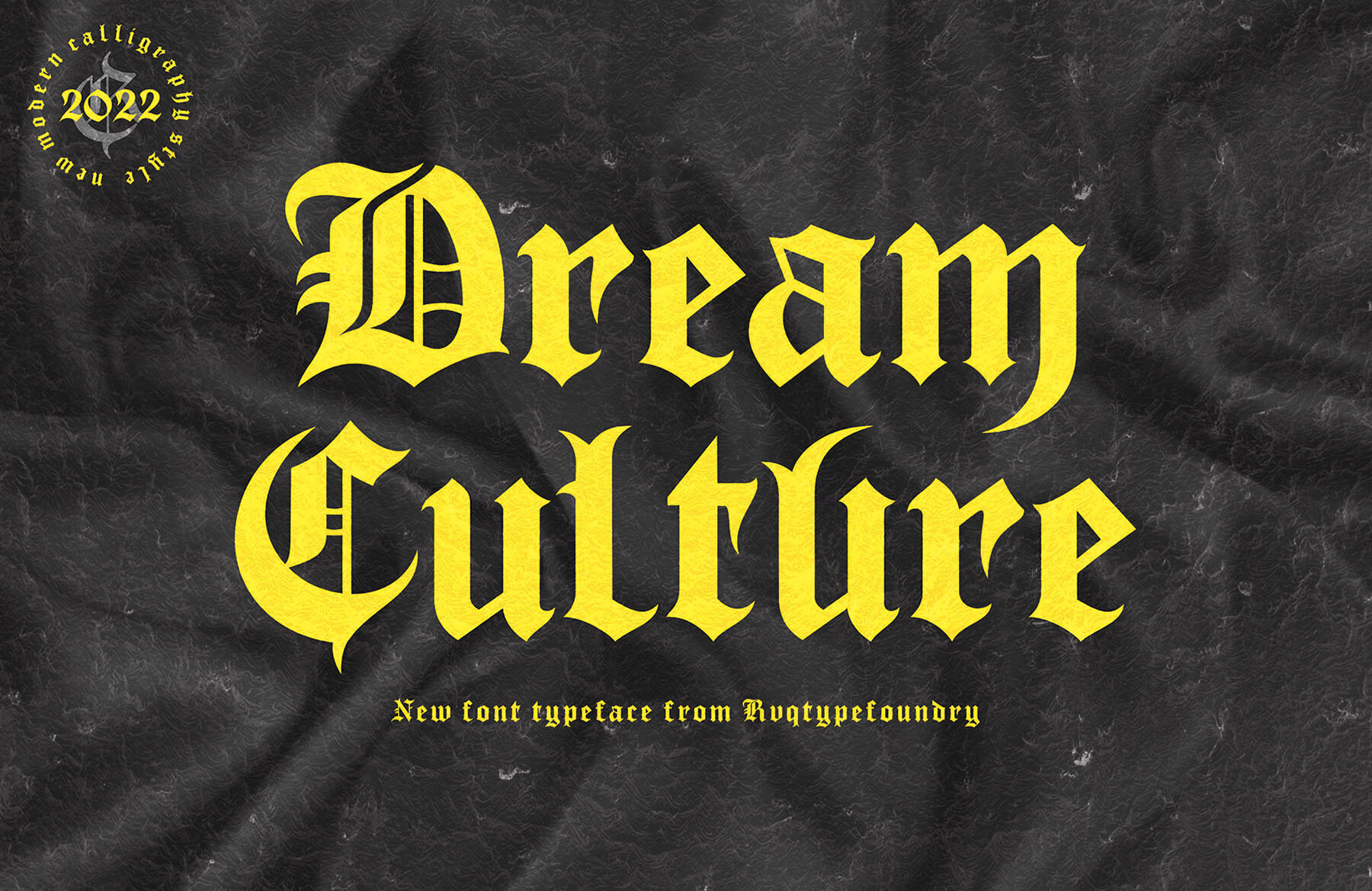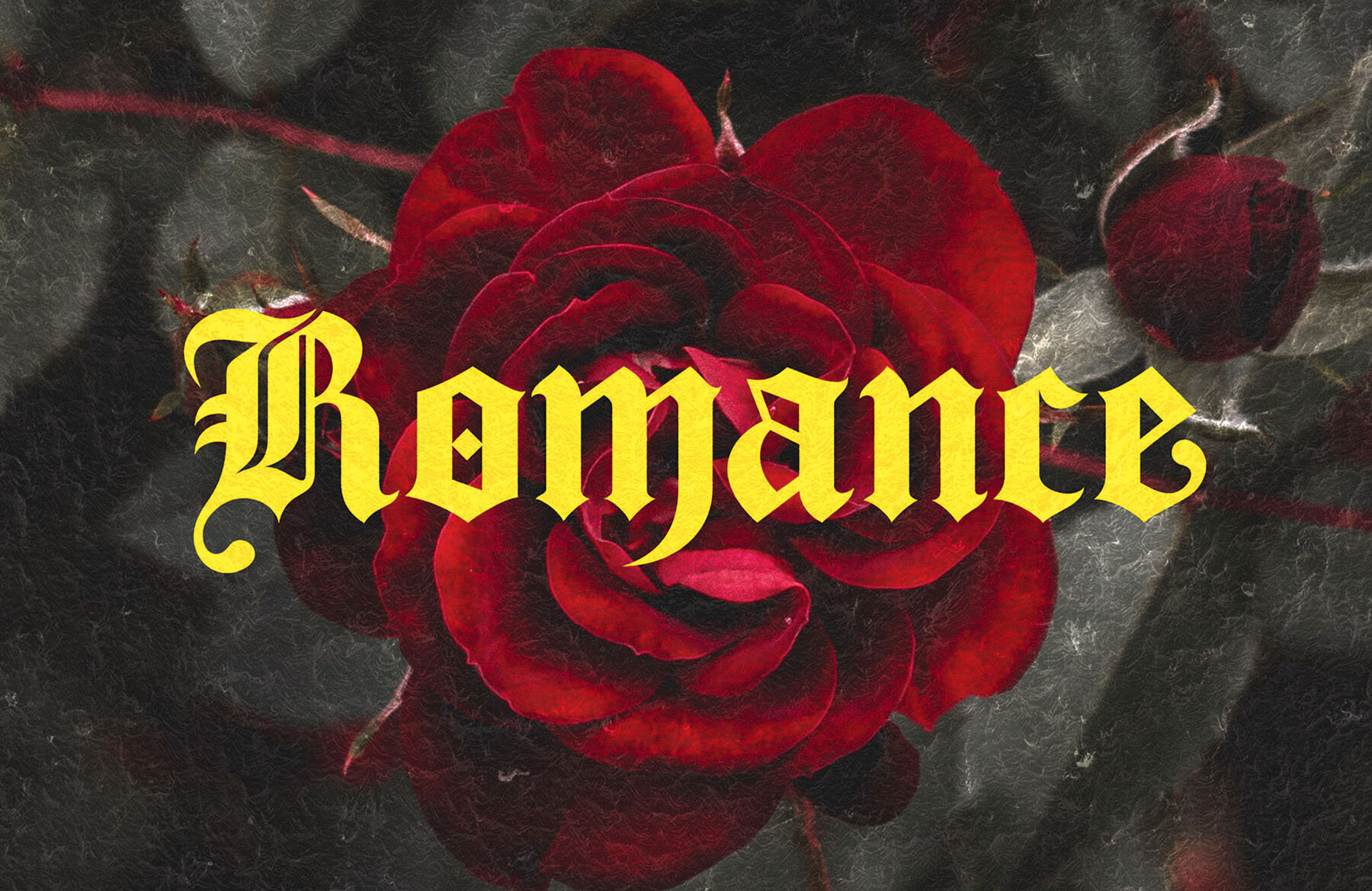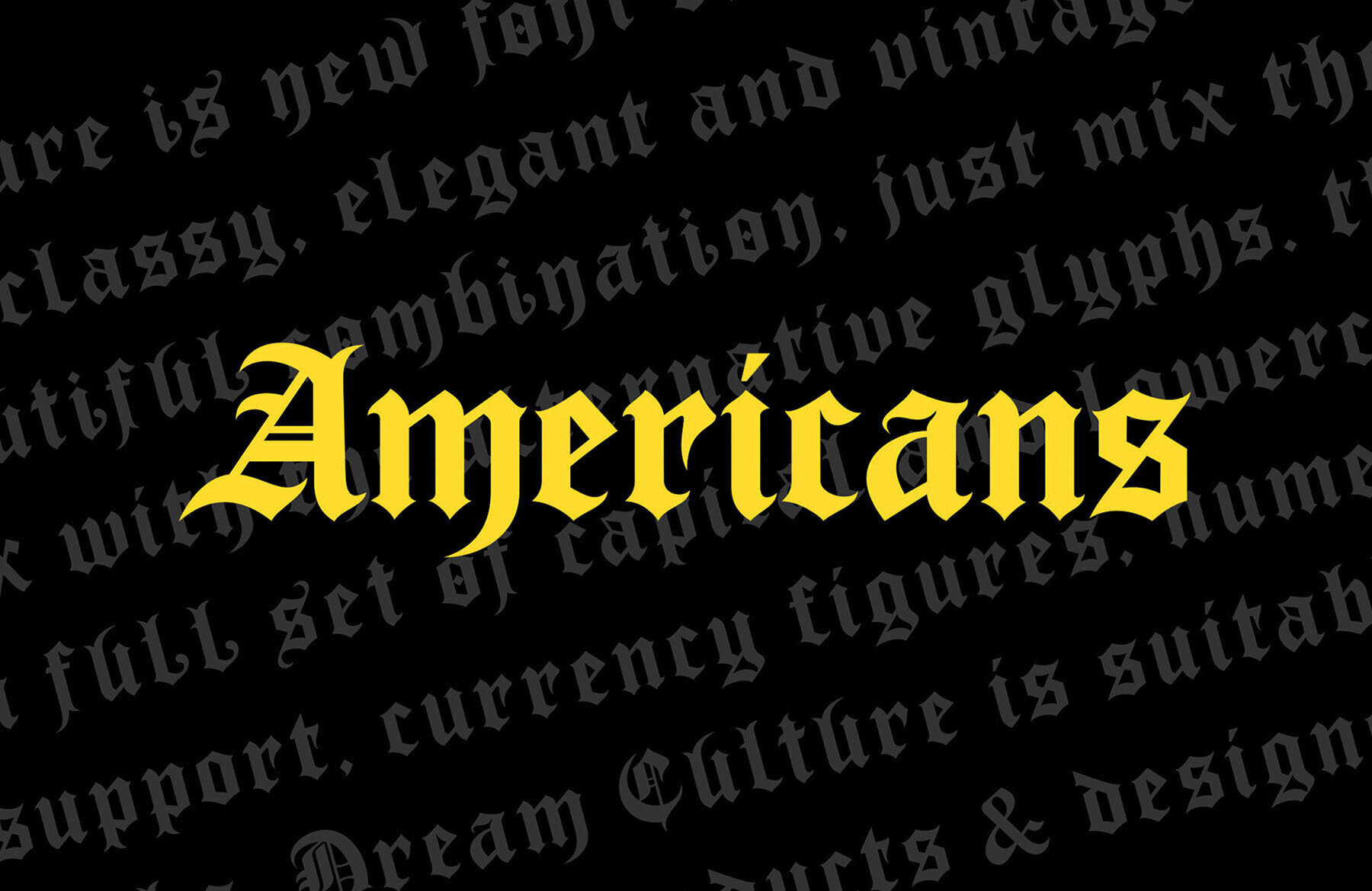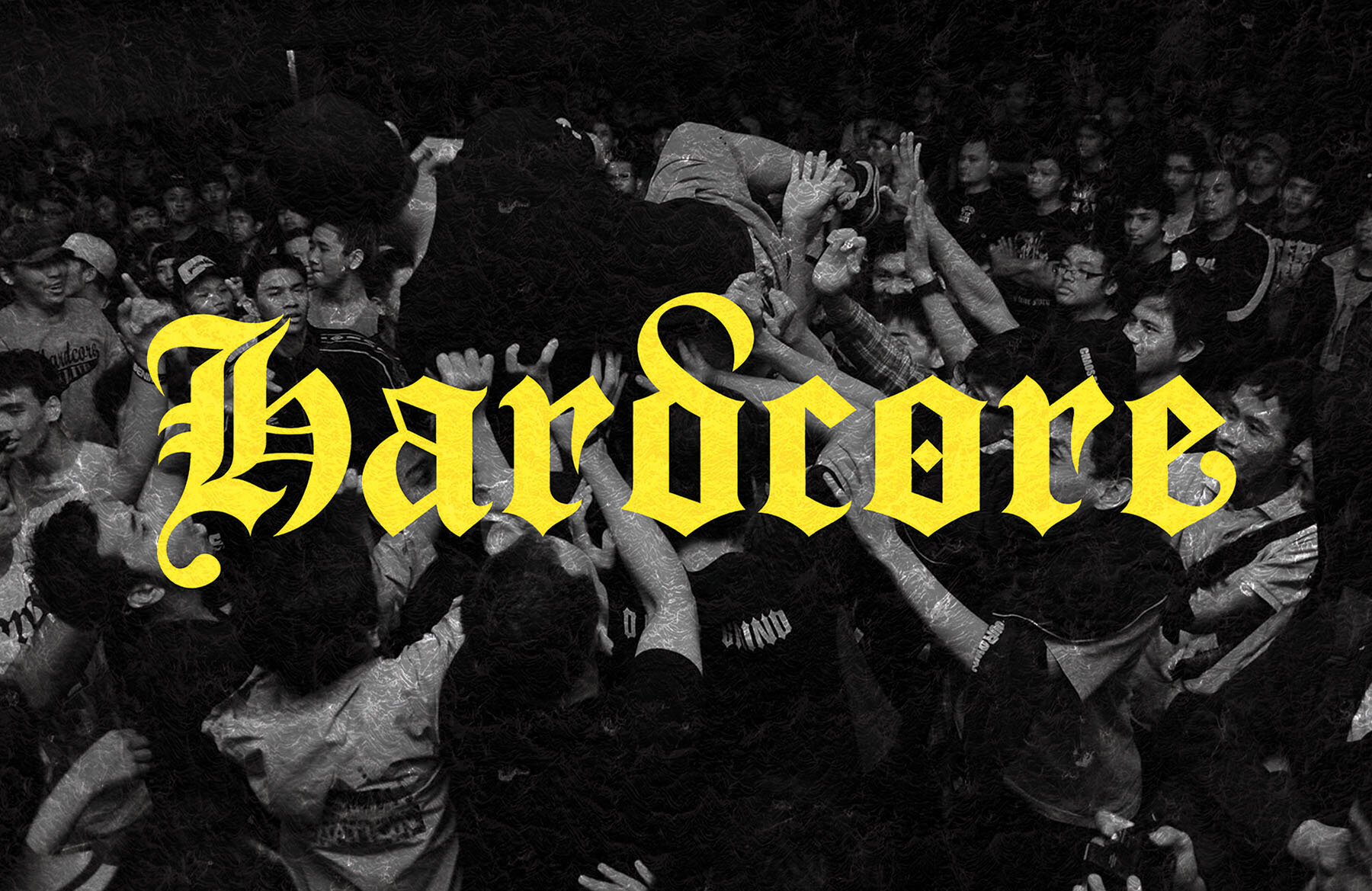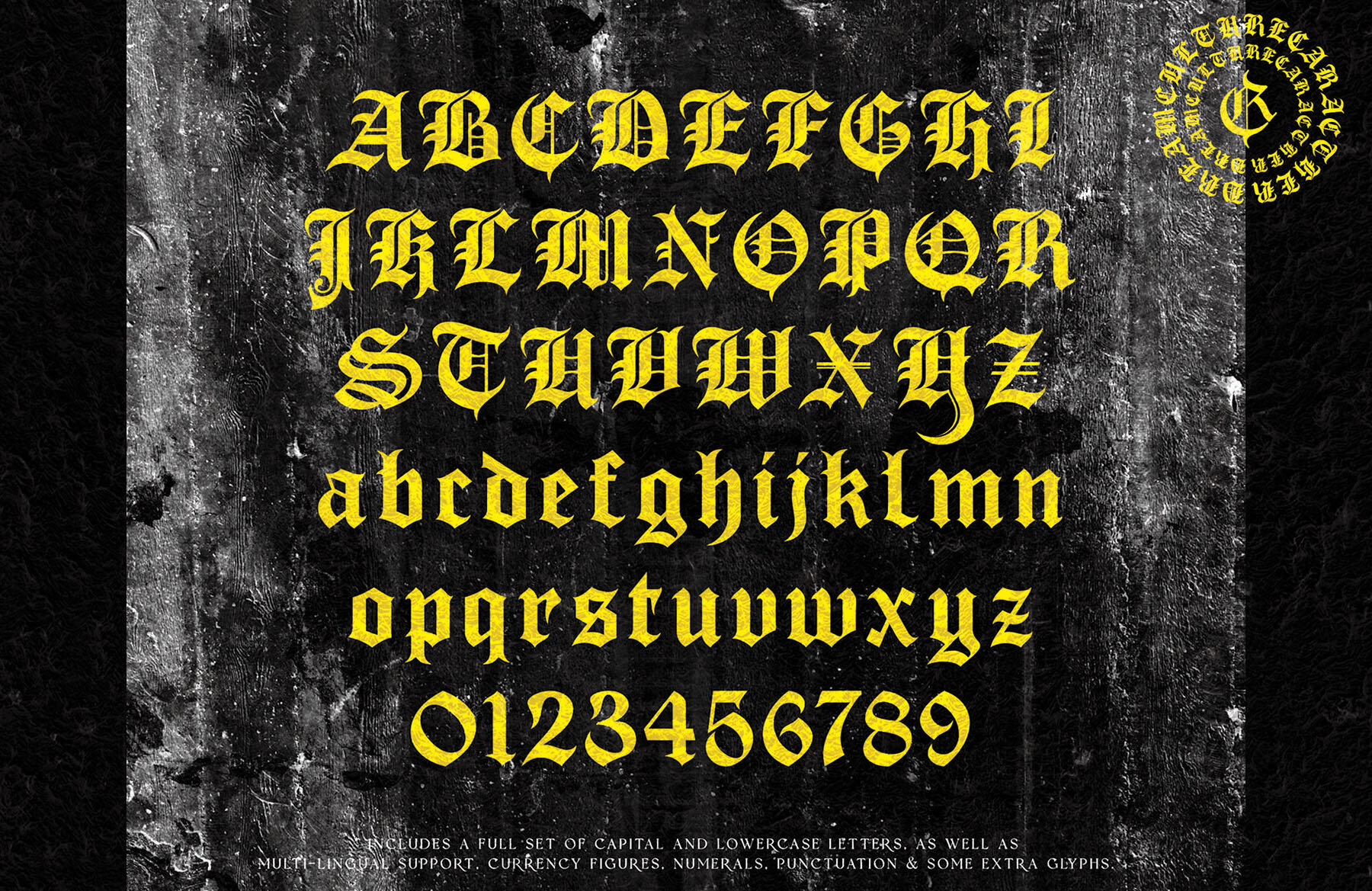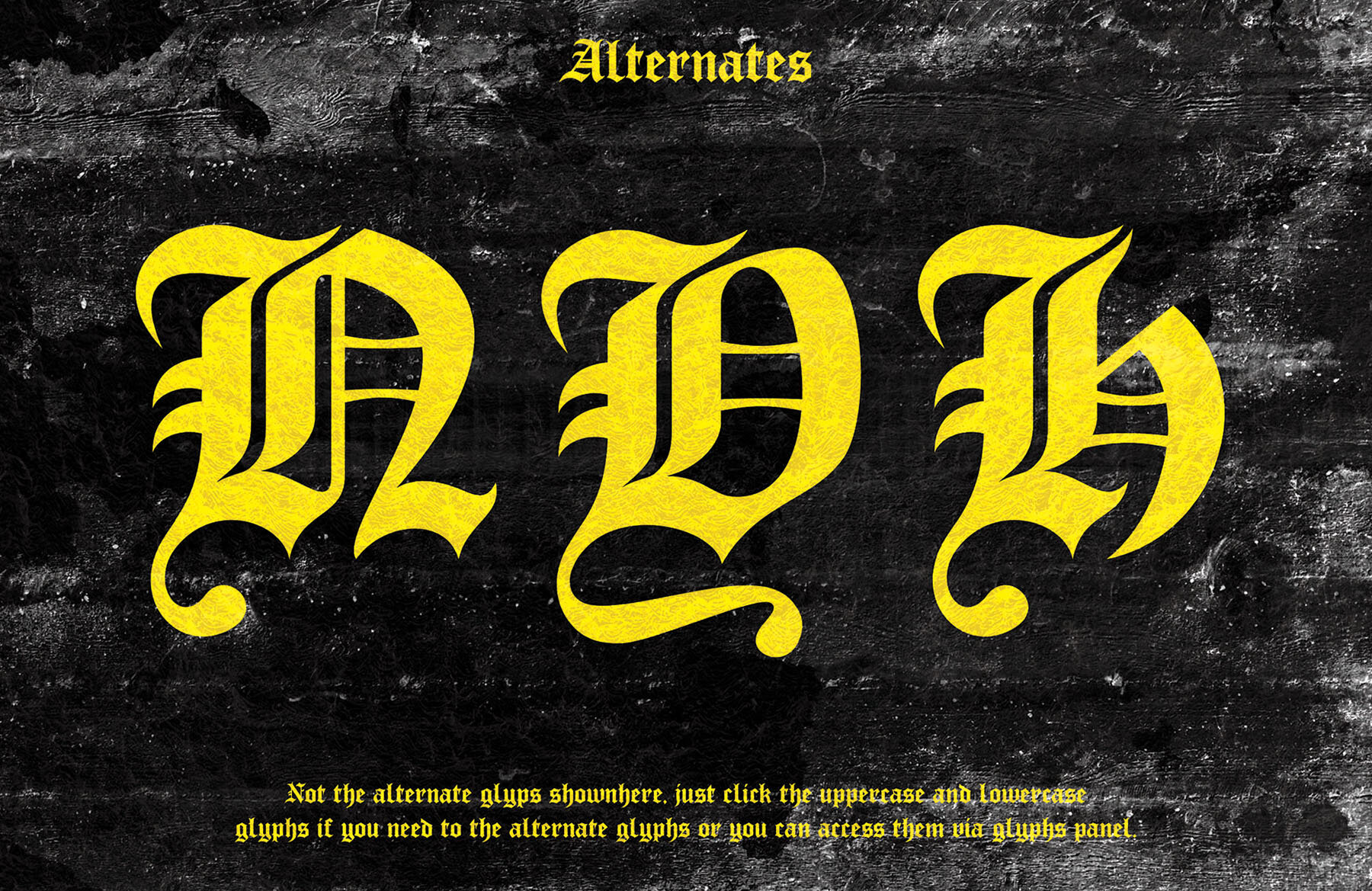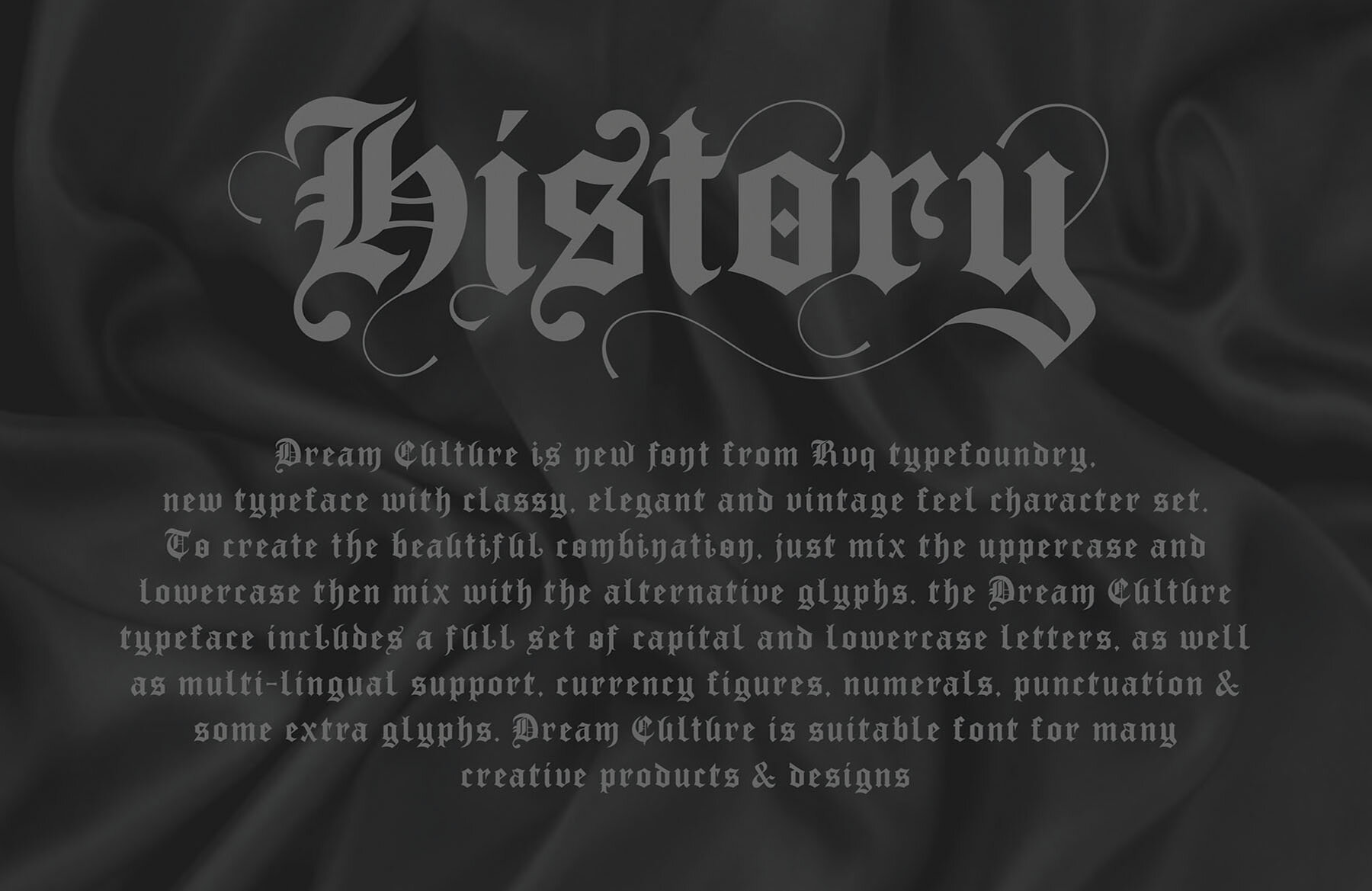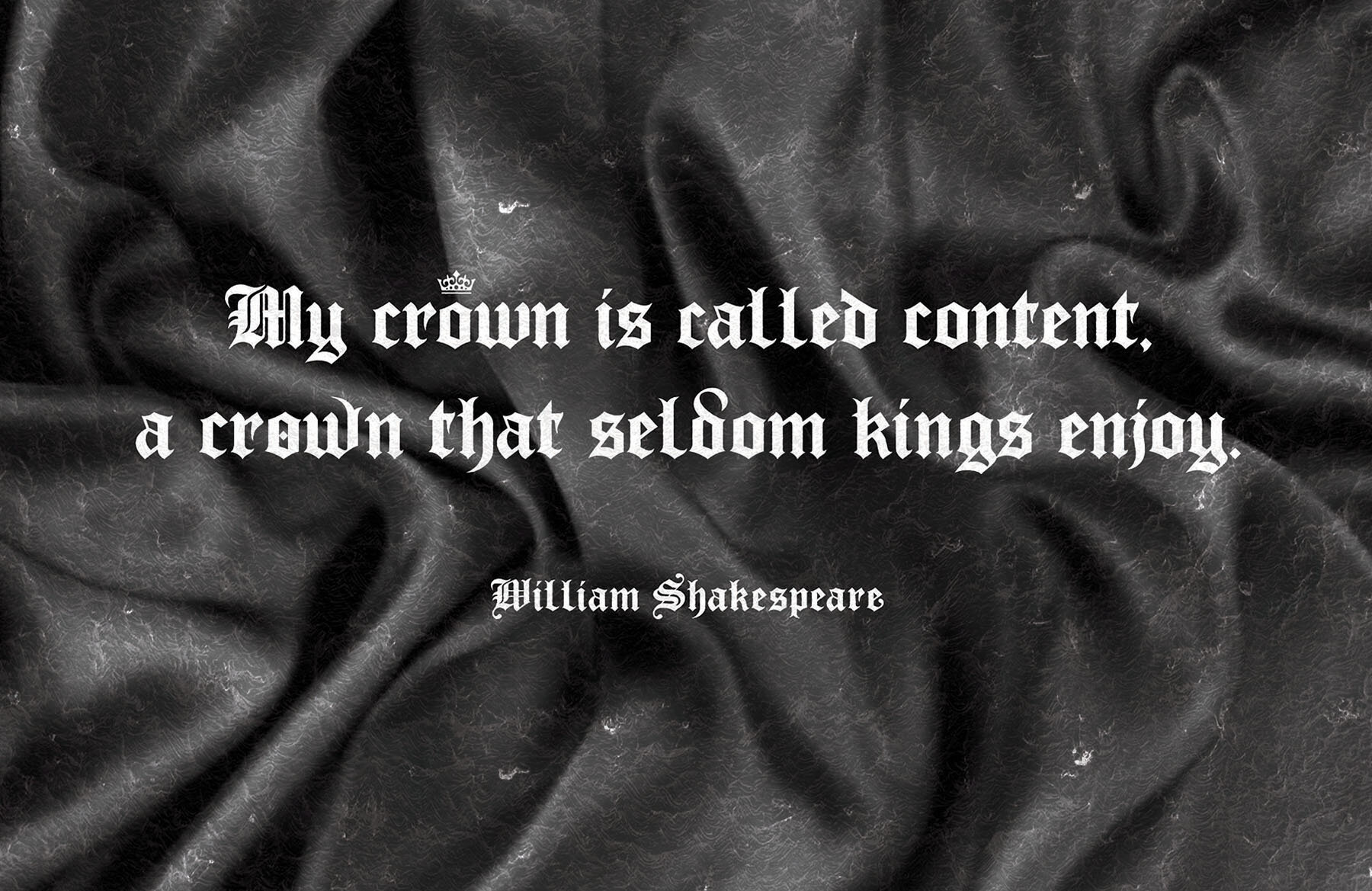
Dream Culture Font
Dream Culture
Step into a world where elegance meets tradition with Dream Culture, a sophisticated font from Rvq Type Foundry. This typeface is thoughtfully designed, presenting a distinctive character set that exudes both class and a nostalgic charm. The harmonious dance of uppercase and lowercase letters, enhanced with alternative glyphs, offers versatility for diverse creative projects. This typeface is ideal for various creative endeavors, providing both functionality and aesthetic appeal. Whether designing printed works or digital media, Dream Culture offers a refined touch to any project.Dream Culture: A Classy Typeface with Vintage Appeal